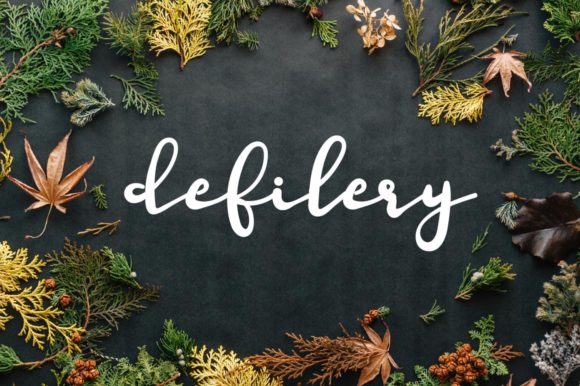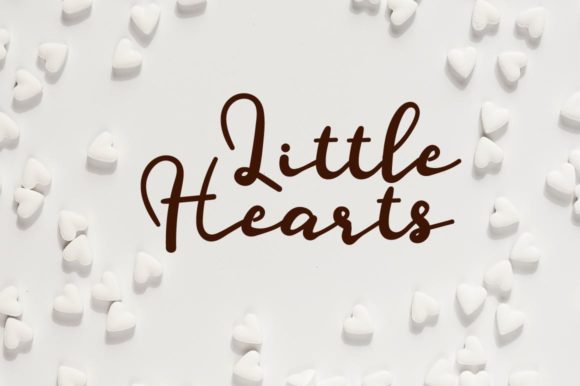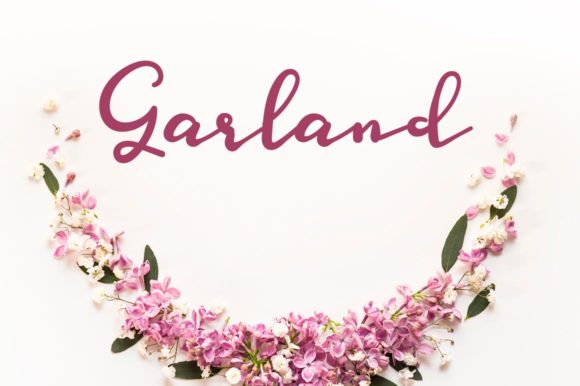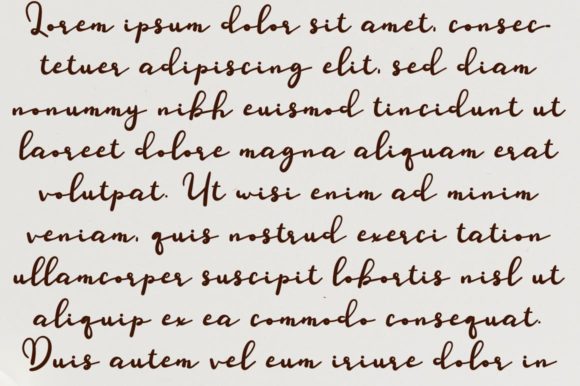
HomeScript FontsDefilery Font Script Fonts Defilery Font FacebookXPinterestWhatsApp Defilery Font Poster 2 Defilery Font Poster 3 Defilery Font Poster 4 About Defilery Font Defilery is an elegant handwritten font that will turn any creative project into an authentic stand out. DOWNLOAD ON CREATIVE FABRICAThis font is sold and delivered by Creative Fabrica. Font Canyon may earn a commission if you buy through this link. People also explored Benjamin Font Halbert Font Shinoda Font The Theatre Font Vanilla Creamy Font Handmade Monogram Font Coffee Font Bunny Font Hynho Font 309 0 TagsDefilery Font Previous articleSontiquity FontNext articleShel Fodor Script Font LEAVE A REPLY Cancel reply Comment: Please enter your comment! Name:* Please enter your name here Email:* You have entered an incorrect email address! Please enter your email address here Website: Save my name, email, and website in this browser for the next time I comment. Personal Use Free Equalizer Script Personal Use Free Read more about this font Jelly Fish Personal Use Free Read more about this font Wildwest Personal Use Free Read more about this font Little Pixel Personal Use Free Read more about this font BLOG Modern Sans-Serif Fonts That Brands Love in 2025 In 2025, modern sans-serif fonts remain a top choice for brands looking to project clarity, professionalism, and... Top 7 Google Fonts Alternatives for Faster and Privacy-Friendly Web Design (2025) Best Fonts for T-Shirt Design – Top 2025 Picks How to Install and Use Fonts on Windows, macOS, and Web Projects